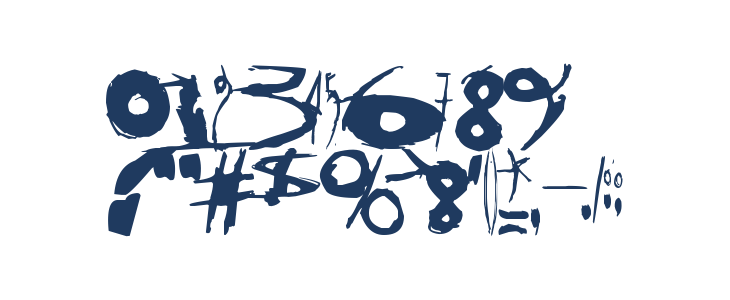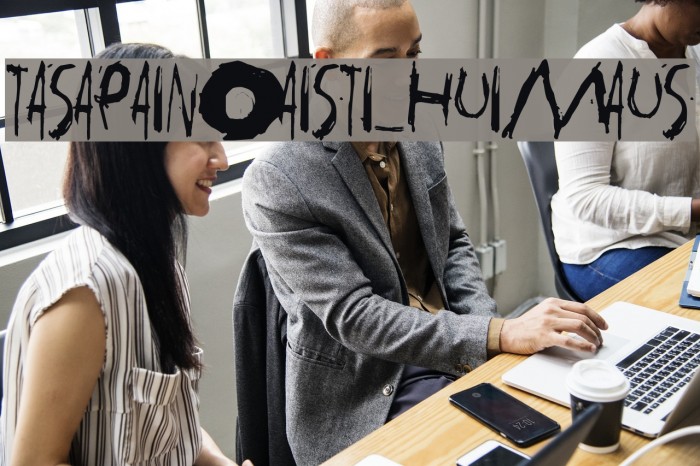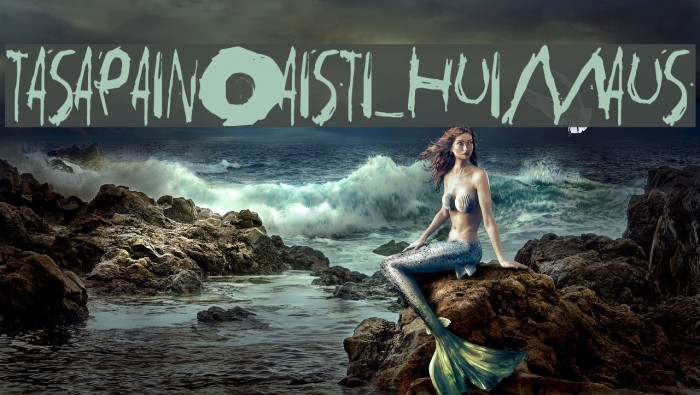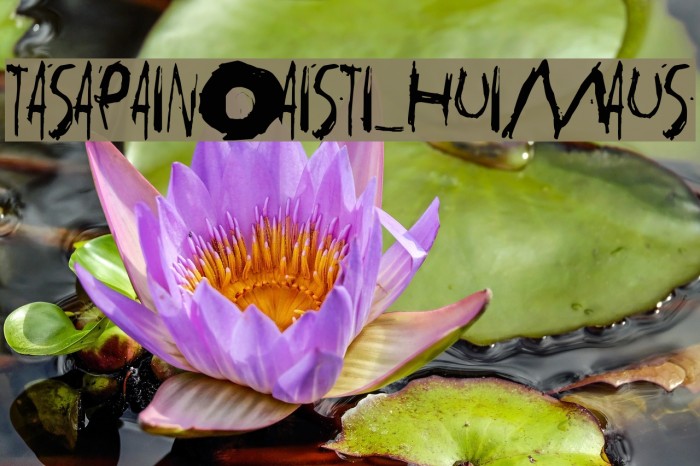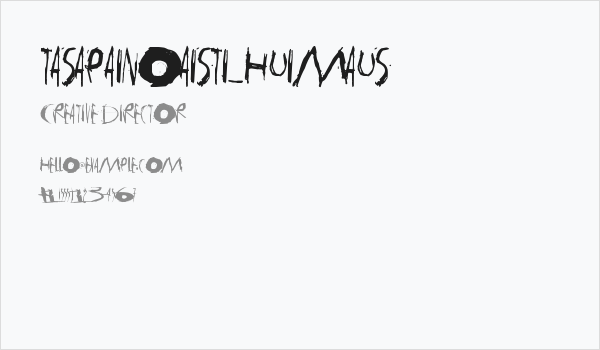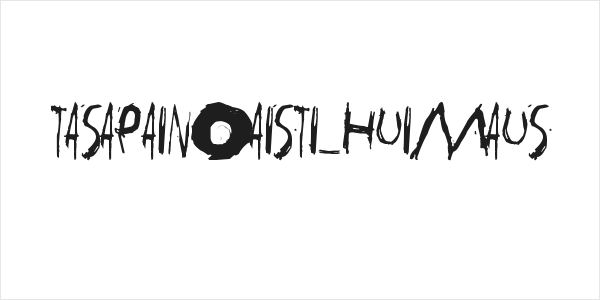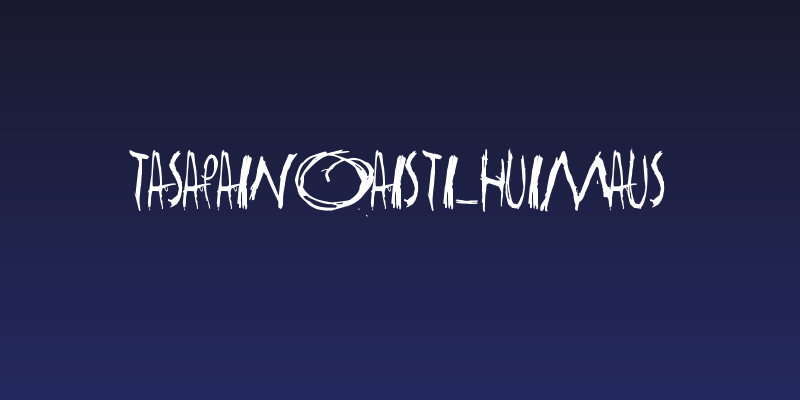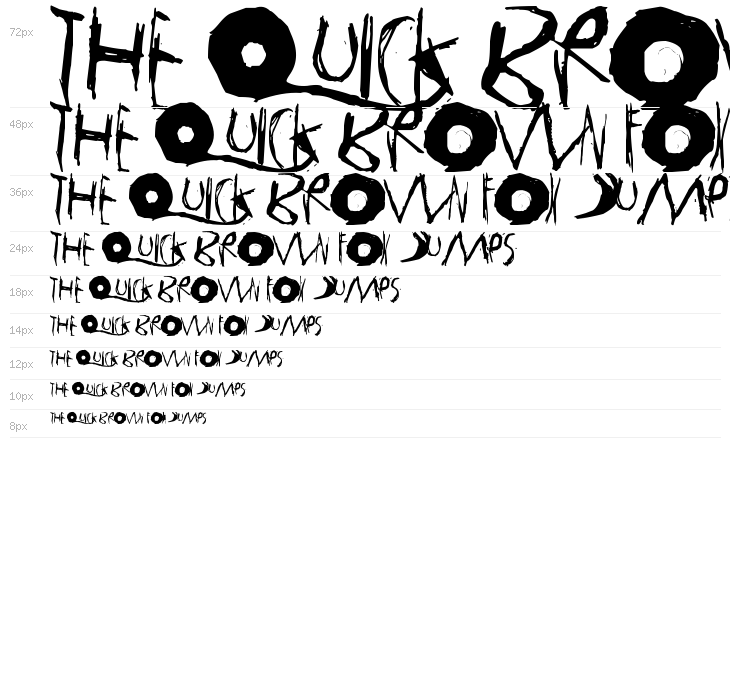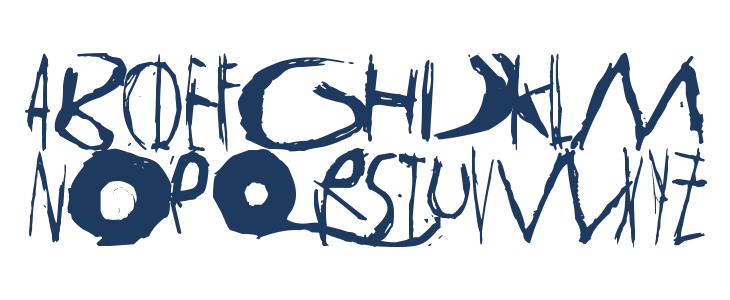
tasapainoaisti_huimaus Font
tasapainoaisti_huimaus Description
This font features a highly expressive and chaotic design, characterized by irregular, jagged strokes and a hand-drawn appearance. The letters are unevenly weighted, with some strokes being thick and bold while others are thin and sharp, creating a dynamic and energetic feel. The overall style is reminiscent of graffiti or abstract art, with a raw and unpolished look. The characters are uniquely shaped, often with exaggerated curves and angles, giving the font a distinctive and unconventional appearance. This font is likely to stand out in any design due to its bold and artistic nature.
Use CaseLogos, Headlines, Artistic projects
Proposed ProjectsIdeal for edgy posters, album covers, street art-inspired designs, and creative branding projects.